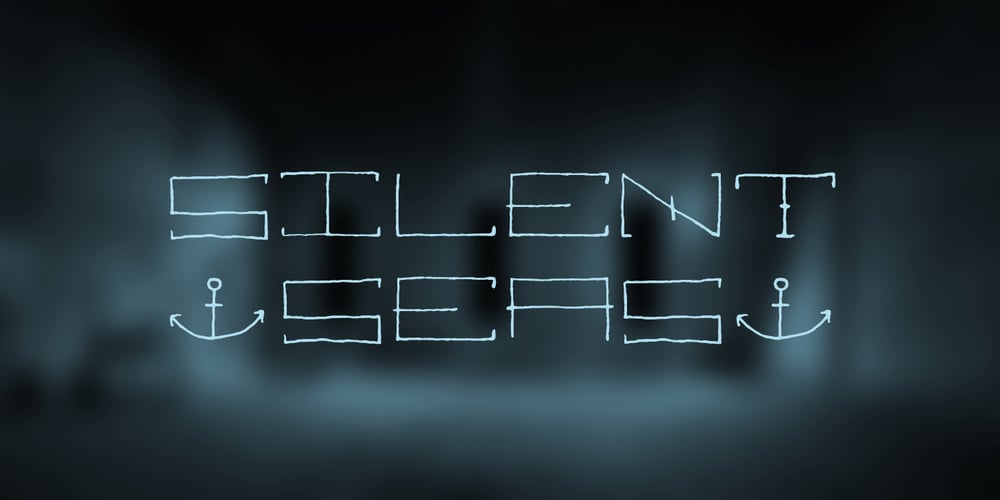
Silent Seas Font Family was designed by Matthew Tyndall and published by Dismantle Destroy. Silent Seas contains 1 styles and family package options. This font was inspired by music from the band Silverstein. The main characteristics are the incredibly thin, orgainic lines.